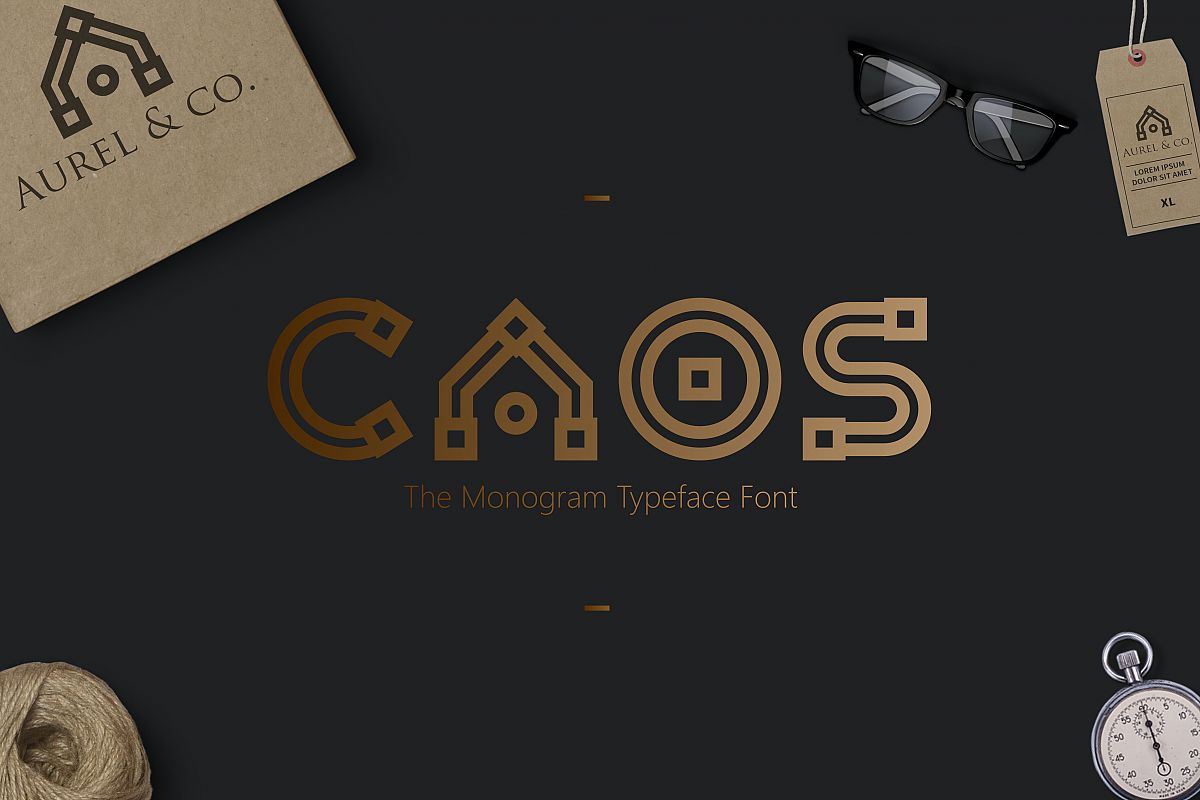
CAOS | The Logo Typeface
Caos-Regular
? C A O S . | . T H E . L O G O . T Y P E F A C E
Welcome to the Sameeh Media. We create the fonts that help you make a great design for your work. CAOS | The Logo Typeface, You can use for branding projects, labels, apparel design, typography pieces and more. Draw Your Brand is a logo marker fonts, designed to combine perfectly and allow you to create stunning hand-lettering quickly and easily.